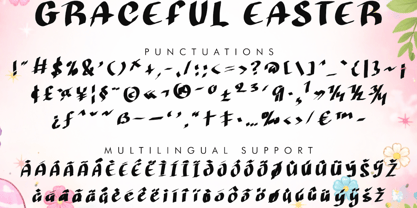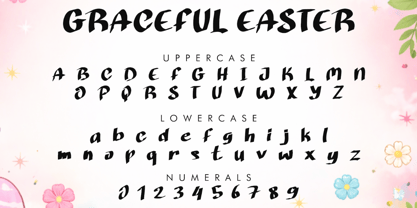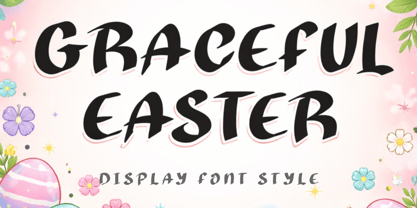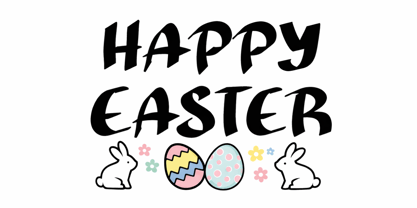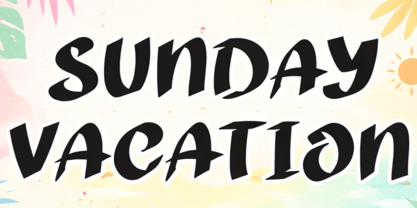
Graceful Easter
by Yoga Letter
The Graceful Easter Font Family was designed by Isroni Yoga Prasetya and published by Yoga Letter. Graceful Easter contains 1 styles. More about this family
"Graceful Easter" is a fun display font. It features uppercase and lowercase letters, numbers, punctuation, and multilingual support. It's perfect for action movie titles, Halloween, Christmas, Easter, spring and summer, banners, branding, stickers, logos, patriotic text, back to school text, business branding, screen printing, tshirt designs, and more.